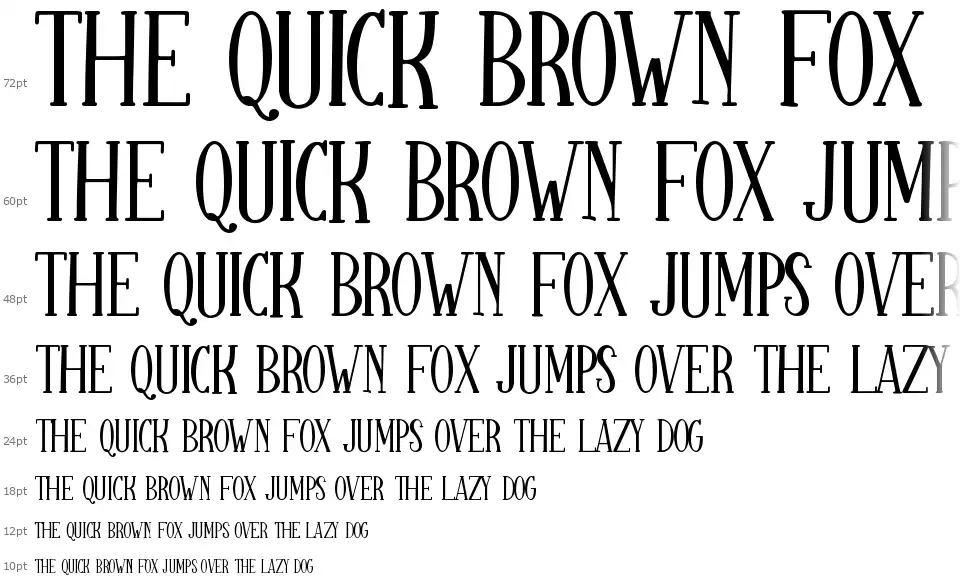
Sparkling Bright Font . Sparkling bright is the perfect font for all your fun designs. Click now to create a custom image with. Sparkling bright is a fancy type font that can be used on any device such as pc, mac, linux, ios and android. Download sparkling bright font family · free for personal use · hello dm letter studio font downloader, please read this first. The font was designed by dimas. Sparkling bright is a font. The sparkling bright font contains 159 beautifully designed characters. This font has 1 variant available. Free download of sparkling bright serif font family with 2 styles. ️ customize your own preview on ffonts.net to make sure. The font subfamily is regular. This font features tall, narrow characters with a high contrast between. A tall, elegant serif font with high contrast and stylish curves. The typeface contains 1 file and supports 24 languages.
A tall, elegant serif font with high contrast and stylish curves. The typeface contains 1 file and supports 24 languages. The font was designed by dimas. ️ customize your own preview on ffonts.net to make sure. Click now to create a custom image with. Sparkling bright is the perfect font for all your fun designs. Sparkling bright is a fancy type font that can be used on any device such as pc, mac, linux, ios and android. Download sparkling bright font family · free for personal use · hello dm letter studio font downloader, please read this first. This font features tall, narrow characters with a high contrast between. The sparkling bright font contains 159 beautifully designed characters.
Sparkling Bright Font This font has 1 variant available. The font was designed by dimas. Sparkling bright is the perfect font for all your fun designs. This font features tall, narrow characters with a high contrast between. ️ customize your own preview on ffonts.net to make sure. The font subfamily is regular. Sparkling bright is a font. Free download of sparkling bright serif font family with 2 styles. This font has 1 variant available. The typeface contains 1 file and supports 24 languages. Sparkling bright is a fancy type font that can be used on any device such as pc, mac, linux, ios and android. Download sparkling bright font family · free for personal use · hello dm letter studio font downloader, please read this first. The sparkling bright font contains 159 beautifully designed characters. A tall, elegant serif font with high contrast and stylish curves. Click now to create a custom image with.
Alphabet letter X made from bright, sparkling diamonds Jewelry font 3d realistic style vector Sparkling Bright Font Download sparkling bright font family · free for personal use · hello dm letter studio font downloader, please read this first. The typeface contains 1 file and supports 24 languages. Sparkling bright is the perfect font for all your fun designs. The font was designed by dimas. This font features tall, narrow characters with a high contrast between. Sparkling bright. Sparkling Bright Font.
Sparkles Font Stunning Script Fonts Creative Market Sparkling Bright Font The sparkling bright font contains 159 beautifully designed characters. Sparkling bright is a font. Click now to create a custom image with. The typeface contains 1 file and supports 24 languages. A tall, elegant serif font with high contrast and stylish curves. Sparkling bright is the perfect font for all your fun designs. The font subfamily is regular. This font. Sparkling Bright Font.
Magic Sparkle Serif Font All Free Fonts Sparkling Bright Font The sparkling bright font contains 159 beautifully designed characters. Download sparkling bright font family · free for personal use · hello dm letter studio font downloader, please read this first. Sparkling bright is a font. Sparkling bright is the perfect font for all your fun designs. This font has 1 variant available. The font was designed by dimas. Sparkling bright. Sparkling Bright Font.
Sparkling Bright Font Family · 1001 Fonts Sparkling Bright Font A tall, elegant serif font with high contrast and stylish curves. This font has 1 variant available. Sparkling bright is a fancy type font that can be used on any device such as pc, mac, linux, ios and android. ️ customize your own preview on ffonts.net to make sure. The sparkling bright font contains 159 beautifully designed characters. The font. Sparkling Bright Font.
Light Blue Glitter Sparkling Font Stock Vector Illustration of background, sparkle 98648170 Sparkling Bright Font The font subfamily is regular. The font was designed by dimas. This font features tall, narrow characters with a high contrast between. Free download of sparkling bright serif font family with 2 styles. This font has 1 variant available. Sparkling bright is the perfect font for all your fun designs. A tall, elegant serif font with high contrast and stylish. Sparkling Bright Font.
Sparkling Font Sparkling Bright Font ️ customize your own preview on ffonts.net to make sure. Free download of sparkling bright serif font family with 2 styles. Click now to create a custom image with. This font has 1 variant available. Sparkling bright is a fancy type font that can be used on any device such as pc, mac, linux, ios and android. The font was. Sparkling Bright Font.
Sparkling Bright Font Family · 1001 Fonts Sparkling Bright Font This font has 1 variant available. A tall, elegant serif font with high contrast and stylish curves. Sparkling bright is a fancy type font that can be used on any device such as pc, mac, linux, ios and android. The sparkling bright font contains 159 beautifully designed characters. The font was designed by dimas. Click now to create a custom. Sparkling Bright Font.
30+ Best Glitter Fonts [FREE / Premium] 2024 Hyperpix Sparkling Bright Font The font subfamily is regular. Free download of sparkling bright serif font family with 2 styles. Sparkling bright is a font. Sparkling bright is the perfect font for all your fun designs. The sparkling bright font contains 159 beautifully designed characters. Click now to create a custom image with. Sparkling bright is a fancy type font that can be used. Sparkling Bright Font.
Sparkle Shine Font 1 stock vector. Illustration of glamour 65194573 Sparkling Bright Font The font was designed by dimas. Sparkling bright is the perfect font for all your fun designs. This font has 1 variant available. Sparkling bright is a font. The font subfamily is regular. The sparkling bright font contains 159 beautifully designed characters. Free download of sparkling bright serif font family with 2 styles. This font features tall, narrow characters with. Sparkling Bright Font.